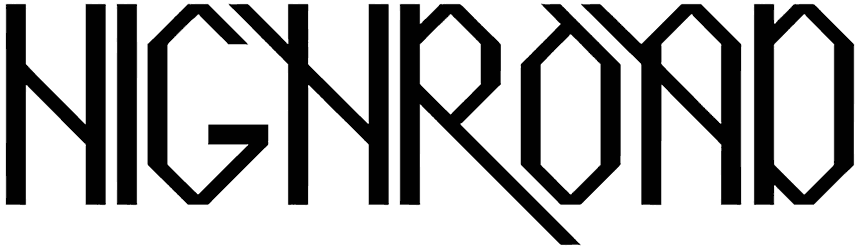
Highroad Font
With crooked and minimal character designs, Highroad brings a modern look to your texts! You can use it for any branding logo, fashion book, channel banners, movie titles, and business cards.
This gothic font has big characters and can give a cool and intense makeover to your texts. The font carries a capitalized set that doesn’t have any lowercase and it lacks a set of numerals.